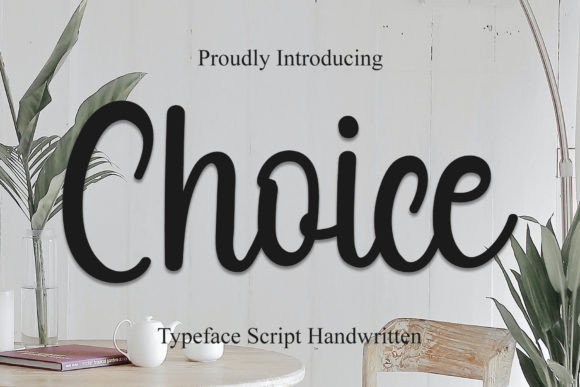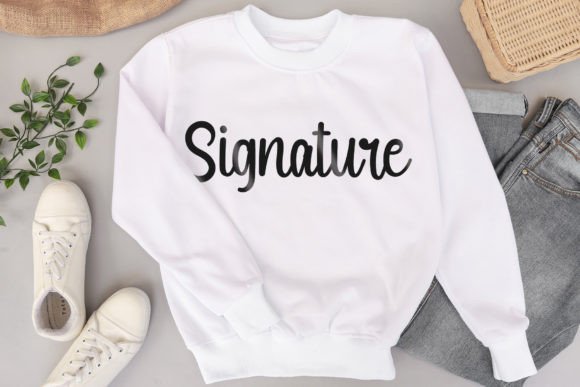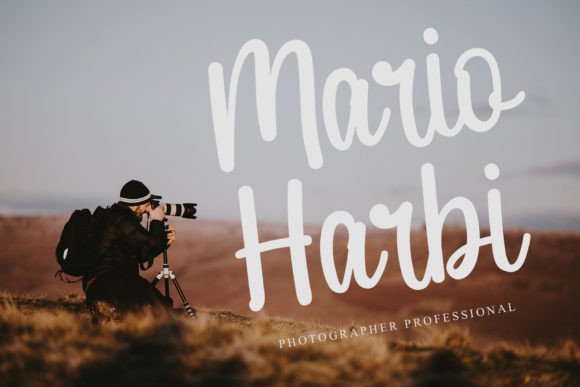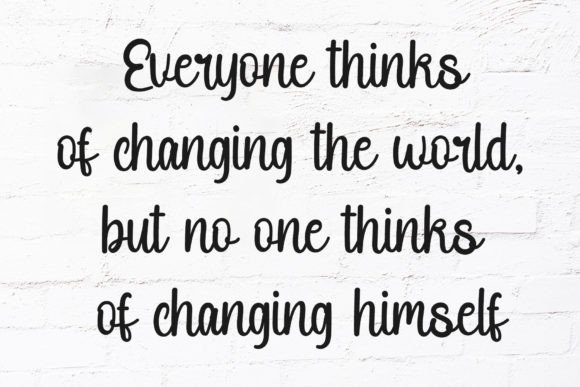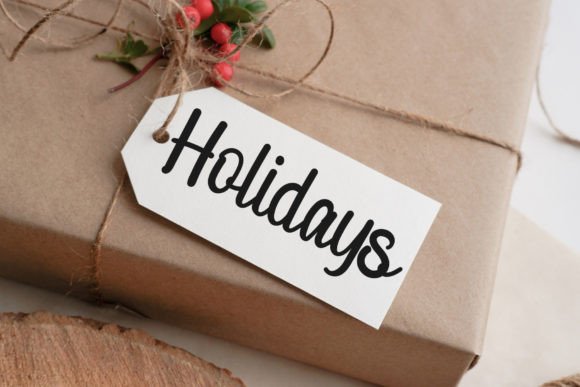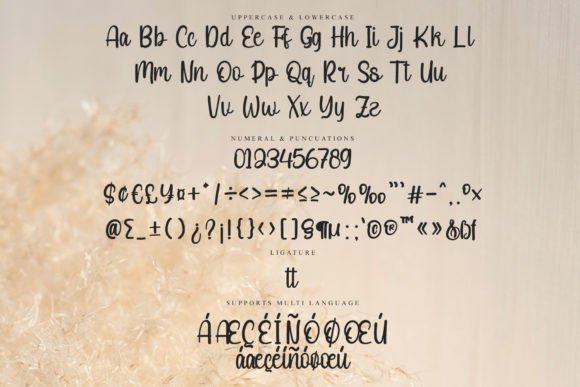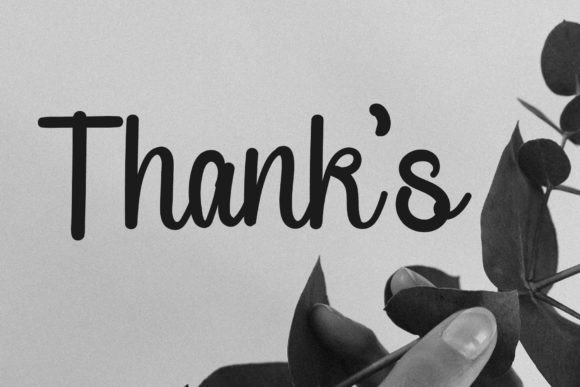
Choice Font
“Choice” is a delightful and cursive handwritten font that brings sweetness and charm to your designs. This gentle and elegant font has the capacity to enhance a variety of creative ideas, adding a joyful and romantic touch to each project it graces. Perfectly fitting for branding, logos, wedding materials, greeting cards, fashion-related designs, lookbooks, marketing promotions, or any instance where you want to achieve a fancy and elegant yet still casual aesthetic.
The cursive and gentle nature of “Choice” lends a romantic flair, making it suitable for projects that require a touch of elegance and sophistication. The flowing strokes of the font create a visually pleasing and harmonious appearance, contributing to the overall charm of your designs.
This font is particularly well-suited for branding and logo design, where it can impart a sense of grace and style. In wedding-related materials, “Choice” can add a romantic and whimsical touch, making it a perfect choice for invitations, place cards, and more. The font’s versatility extends to greeting cards, fashion-related content, lookbooks, and marketing promotions, where it can effortlessly elevate the visual appeal.
Whether you’re aiming for a fancy and elegant look or a casual and charming feel, “Choice” stands out as a font that adapts to various design contexts. Its ability to strike a balance between formality and approachability makes it a valuable asset for designers seeking a versatile and visually appealing cursive handwritten font for a diverse range of creative projects.